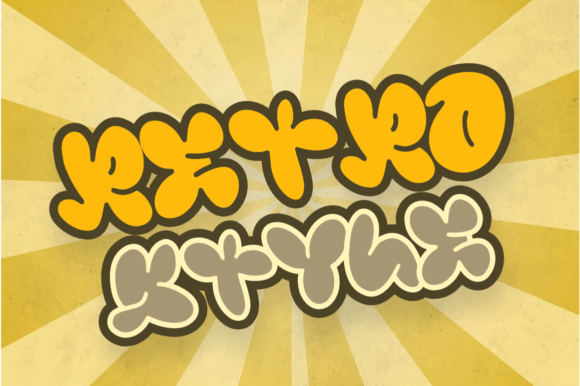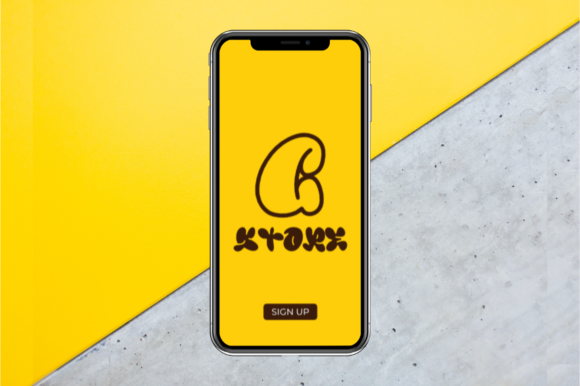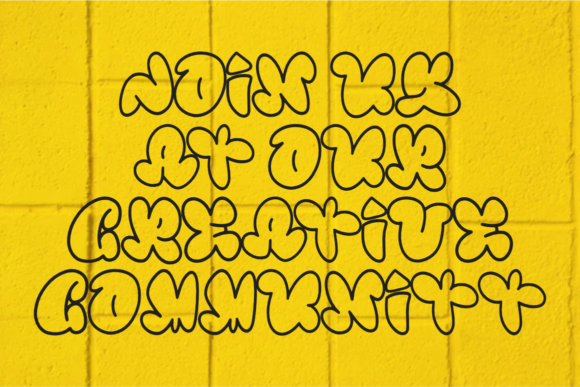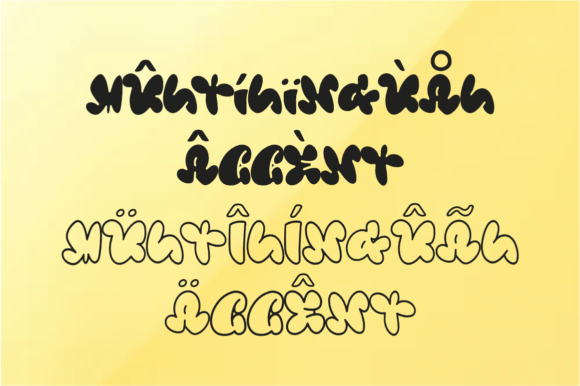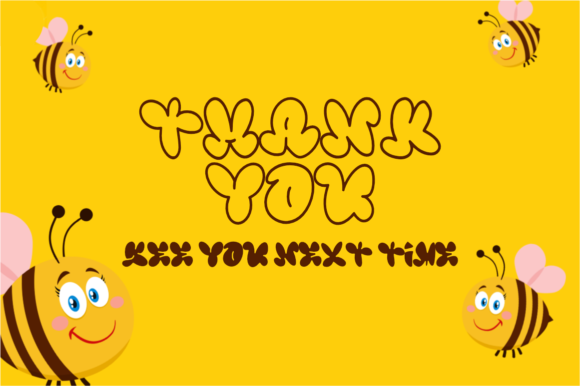
Babybee Font: The Ultimate Display Font for Creative Projects
Are you tired of using the same old fonts for your creative projects? Look no further than the Babybee Font! This chubby and incredibly unique display font is perfect for adding a touch of personality to your designs. Whether you’re a crafter, digital designer, or simply someone who loves making greeting cards, Babybee Font is the perfect addition to your toolkit.
What Makes Babybee Font So Special?
Babybee Font is a one-of-a-kind display font that stands out from the crowd. Its chubby and playful design makes it perfect for creating eye-catching headlines, titles, and captions. The font’s unique shape and rounded edges give it a friendly and approachable feel, making it ideal for projects that require a personal touch.
Uses for Babybee Font
The versatility of Babybee Font is one of its best features. Here are just a few ideas for how you can use this amazing font:
- Crafting: Use Babybee Font to add a personal touch to your handmade crafts, such as scrapbooking, card making, and DIY projects.
- Digital Designing: Add a playful touch to your digital designs, including social media graphics, blog posts, and website headers.
- Presentations: Make your presentations stand out with Babybee Font’s unique and eye-catching design.
- Greeting Cards: Create one-of-a-kind greeting cards for special occasions, such as birthdays, weddings, and holidays.
Why Designers and Crafters Love Babybee Font
So, why do designers and crafters love Babybee Font? Here are just a few reasons:
- Unique Design: Babybee Font’s unique design makes it stand out from other fonts on the market.
- Easy to Read: Despite its playful design, Babybee Font is easy to read, making it perfect for use in a variety of projects.
- Versatile: Babybee Font can be used in a wide range of projects, from digital designs to handmade crafts.
- High-Quality: Babybee Font is a high-quality font that is designed to deliver exceptional results.
Tips for Using Babybee Font
Here are a few tips for getting the most out of Babybee Font:
- Use it sparingly: While Babybee Font is perfect for headlines and titles, it can be overwhelming if used too much. Use it sparingly to create a balanced design.
- Pair it with other fonts: Babybee Font pairs well with a variety of other fonts. Experiment with different pairings to find the perfect combination for your project.
- Experiment with colors: Babybee Font looks great in a variety of colors. Experiment with different colors to find the perfect shade for your project.
In conclusion, Babybee Font is a unique and versatile display font that is perfect for a wide range of creative projects. Its chubby and playful design makes it stand out from other fonts on the market, and its ease of use makes it perfect for designers and crafters of all skill levels. Whether you’re creating digital designs, handmade crafts, or simply making greeting cards, Babybee Font is the perfect addition to your toolkit.